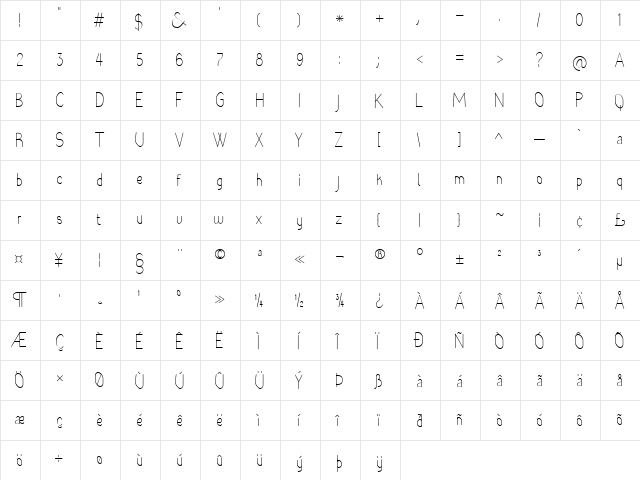
Rara Dolor Regular Font Preview
Rara Dolor Regular
| Foundry | Fabiane Lima |
| Designer | Fabiane Lima |
Design Context for Rara Dolor Typeface
Rara Dolor offers clean, dependable letterforms without strong stylistic allegiance, making it a practical choice for designers who need flexibility.
Pro Tip: Pair Rara Dolor with a font of contrasting weight or personality to build a more expressive typographic hierarchy.